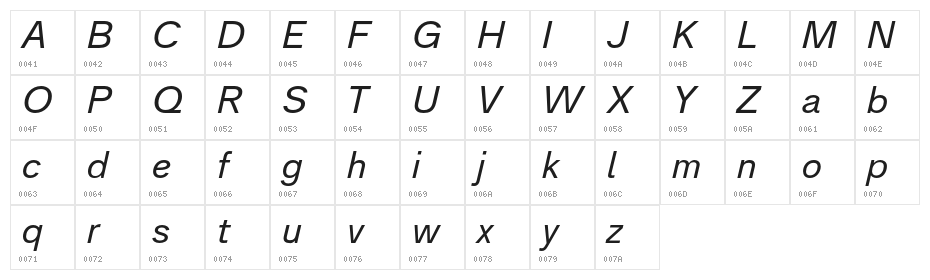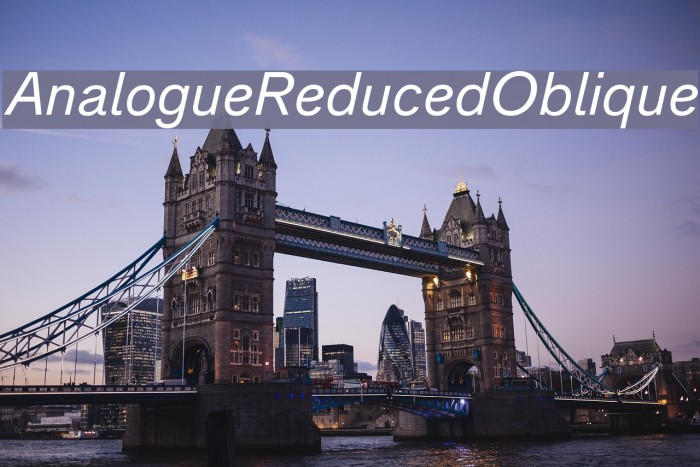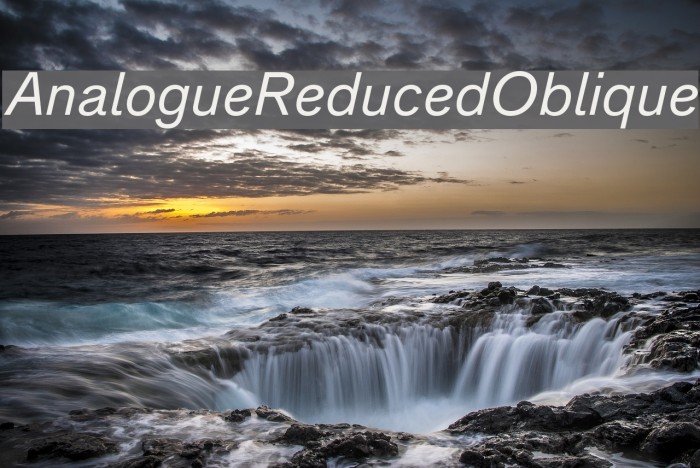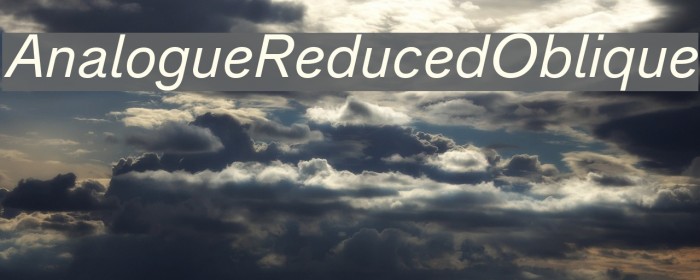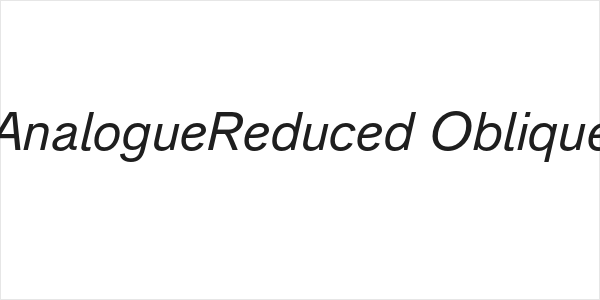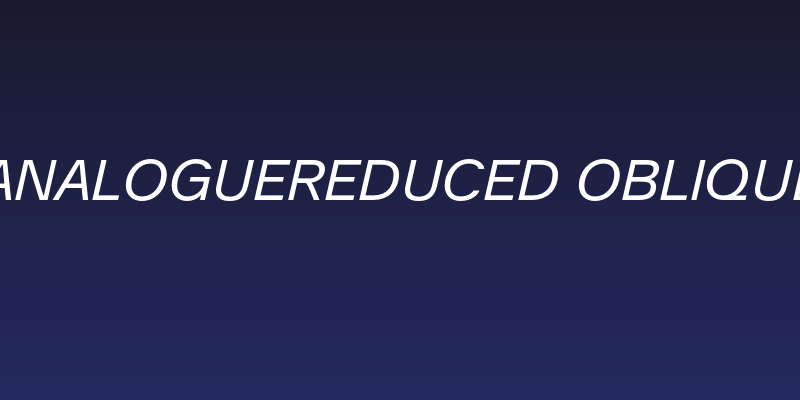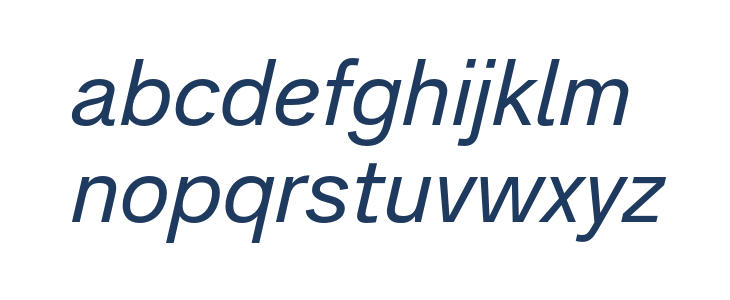
AnalogueReduced-Oblique Font
AnalogueReduced-Oblique Description
This font features a sleek and modern design with an oblique style, giving it a dynamic and forward-leaning appearance. The characters are clean and well-defined, with a consistent stroke width that maintains readability across various sizes. The uppercase and lowercase letters are proportionate, and the numerals are clear and distinct. The special characters are designed to complement the overall aesthetic, making it versatile for different applications.